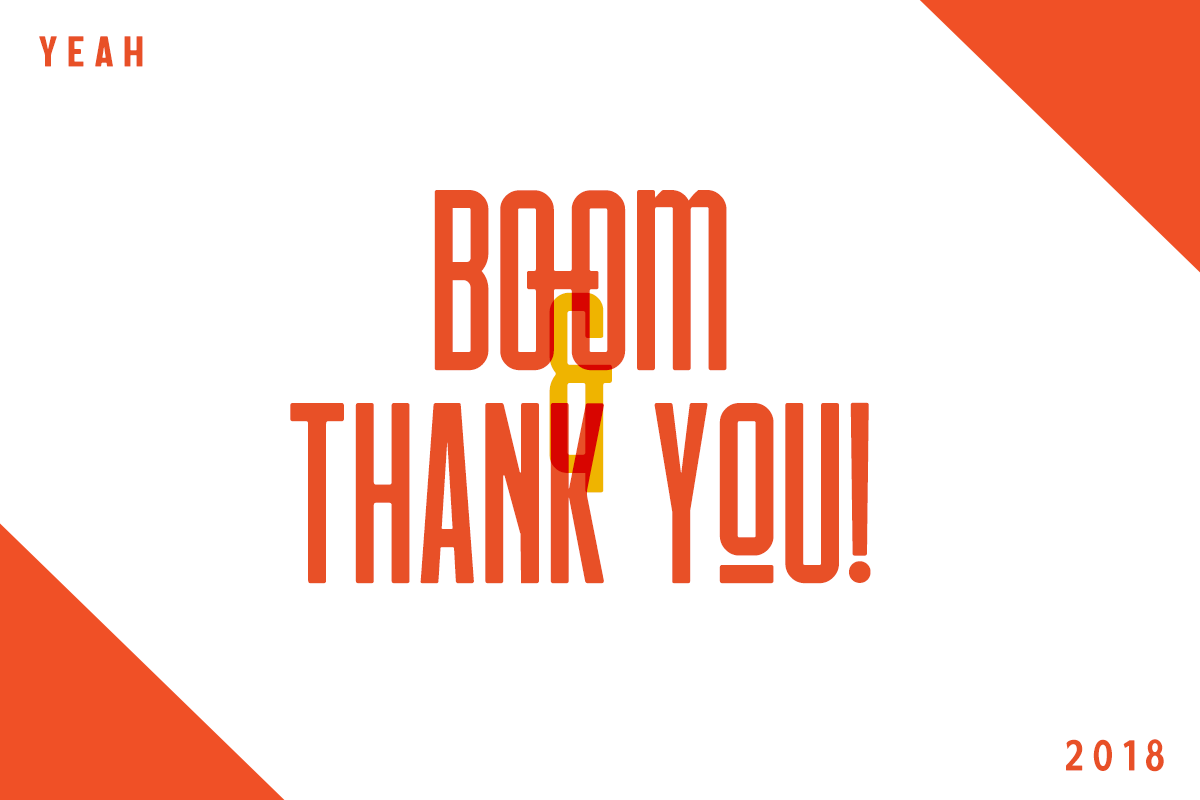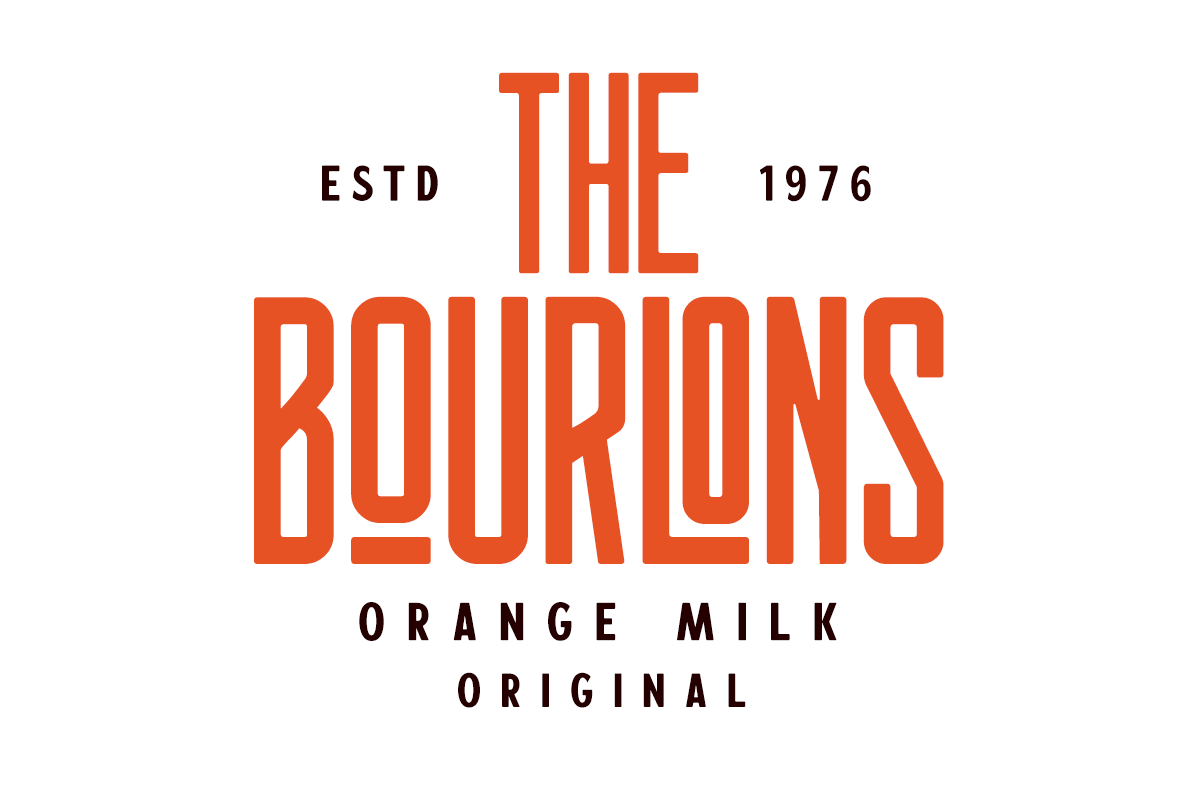
Chillvornia Font Duo!
CHILLVORNIA is a family sans serif font designed with carefully handcrafted. Also suitable for branding, T-shirt, Wedding Invitation, Classic Design, Logotype, and any project. With two style make you easier to design everythings.
Multilingual Support support many different languages 20+ .